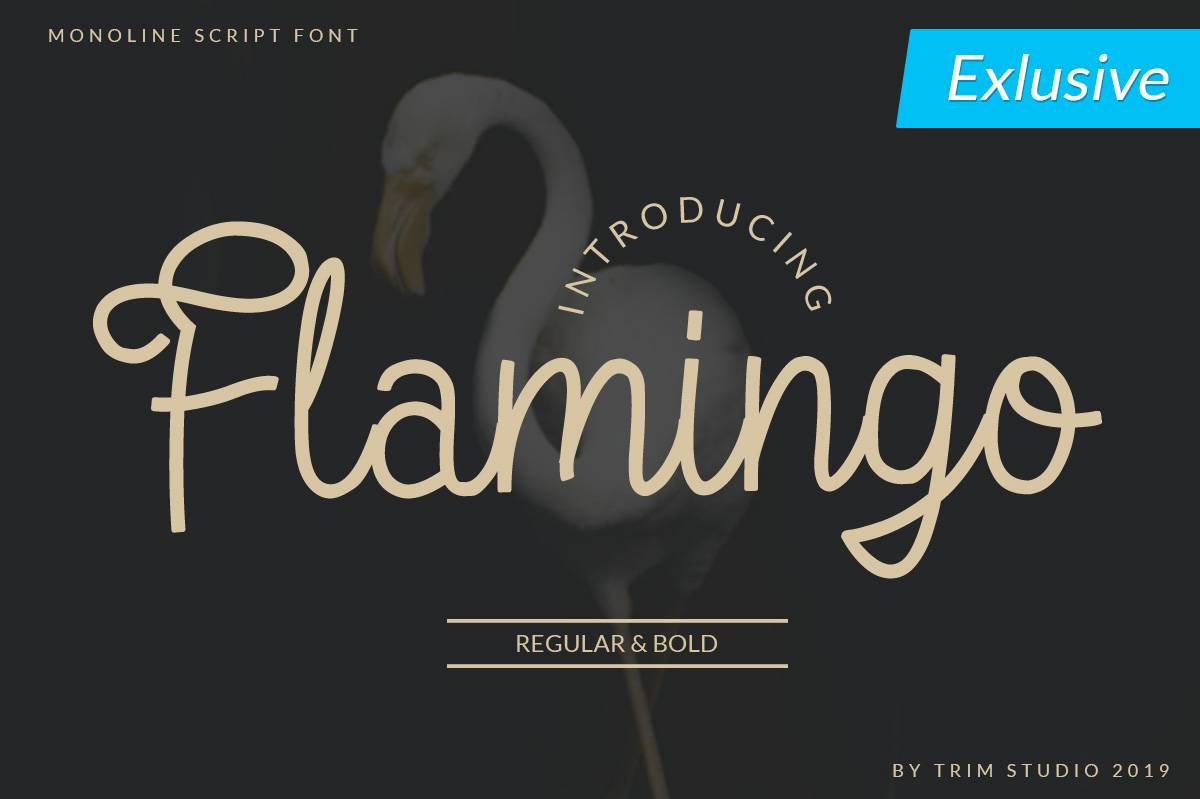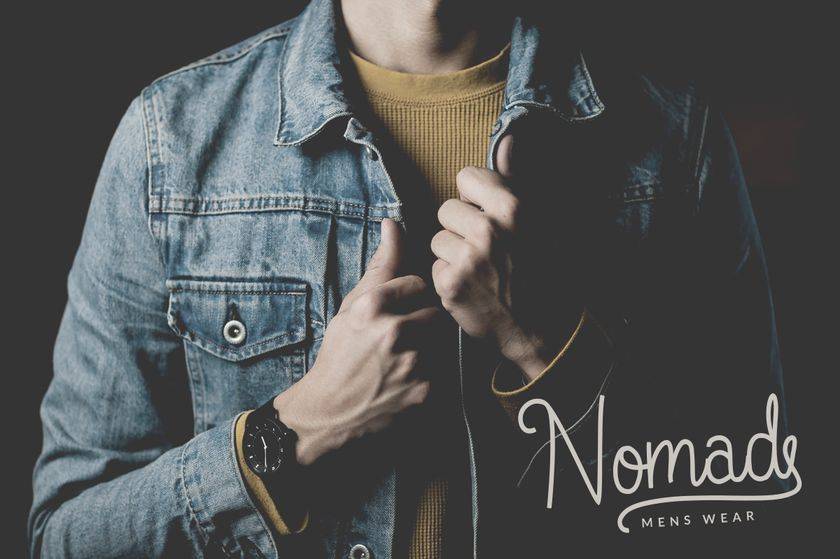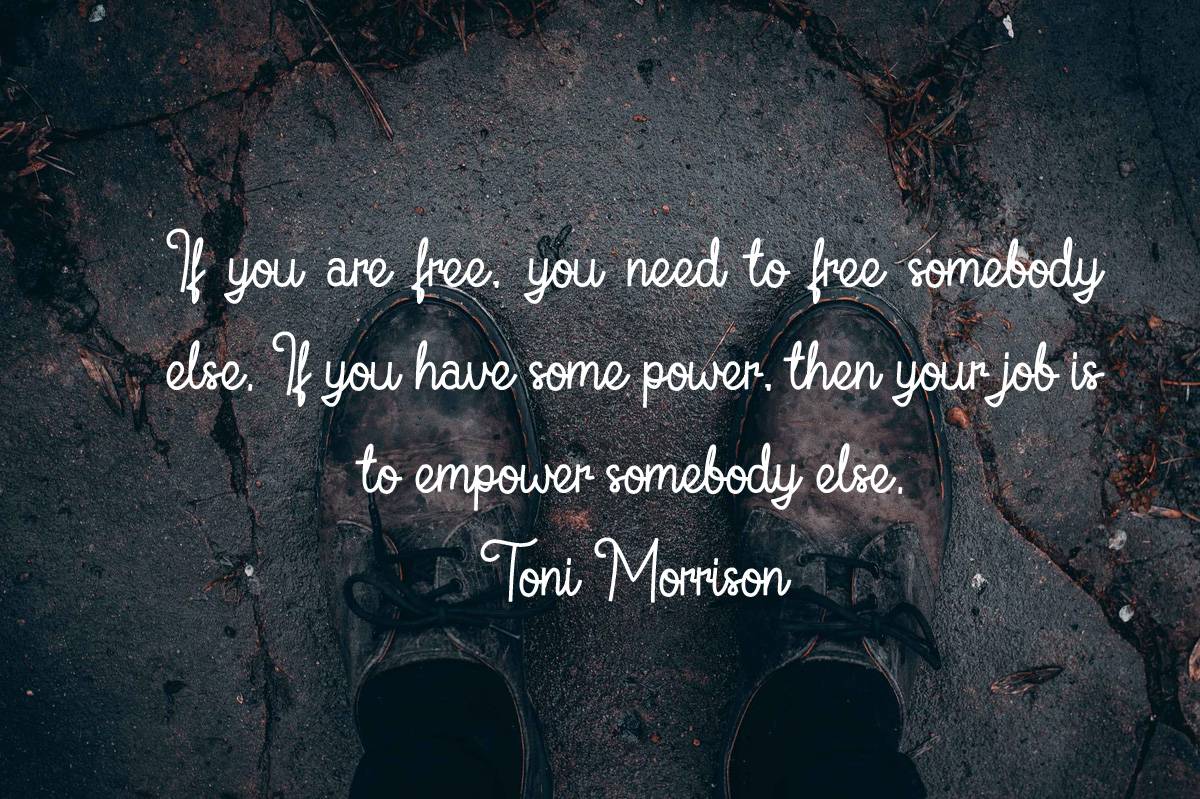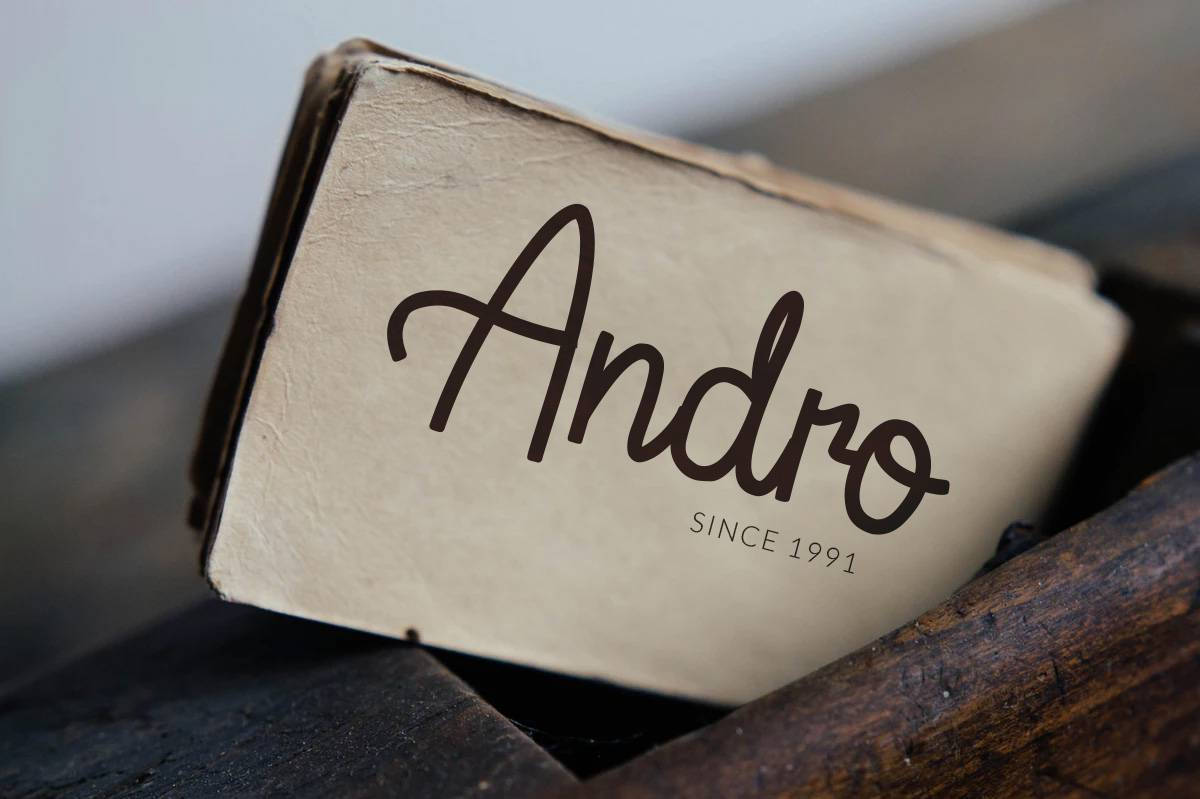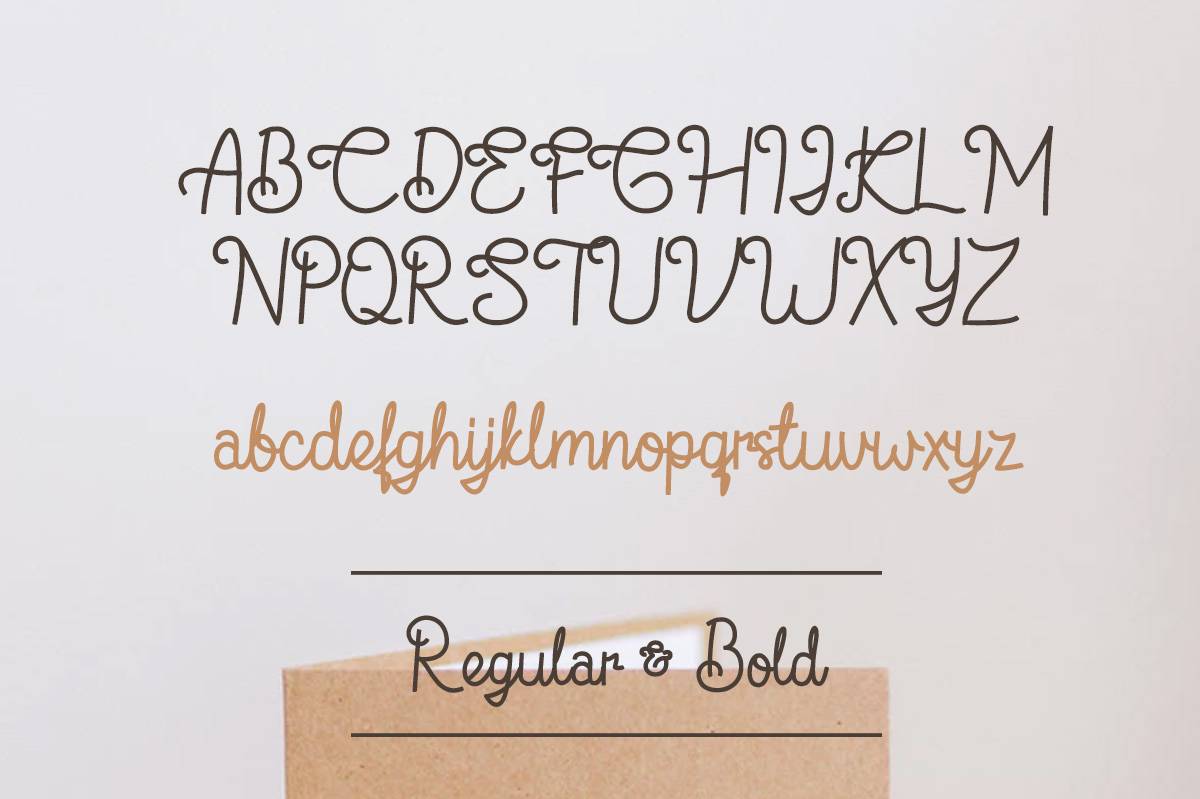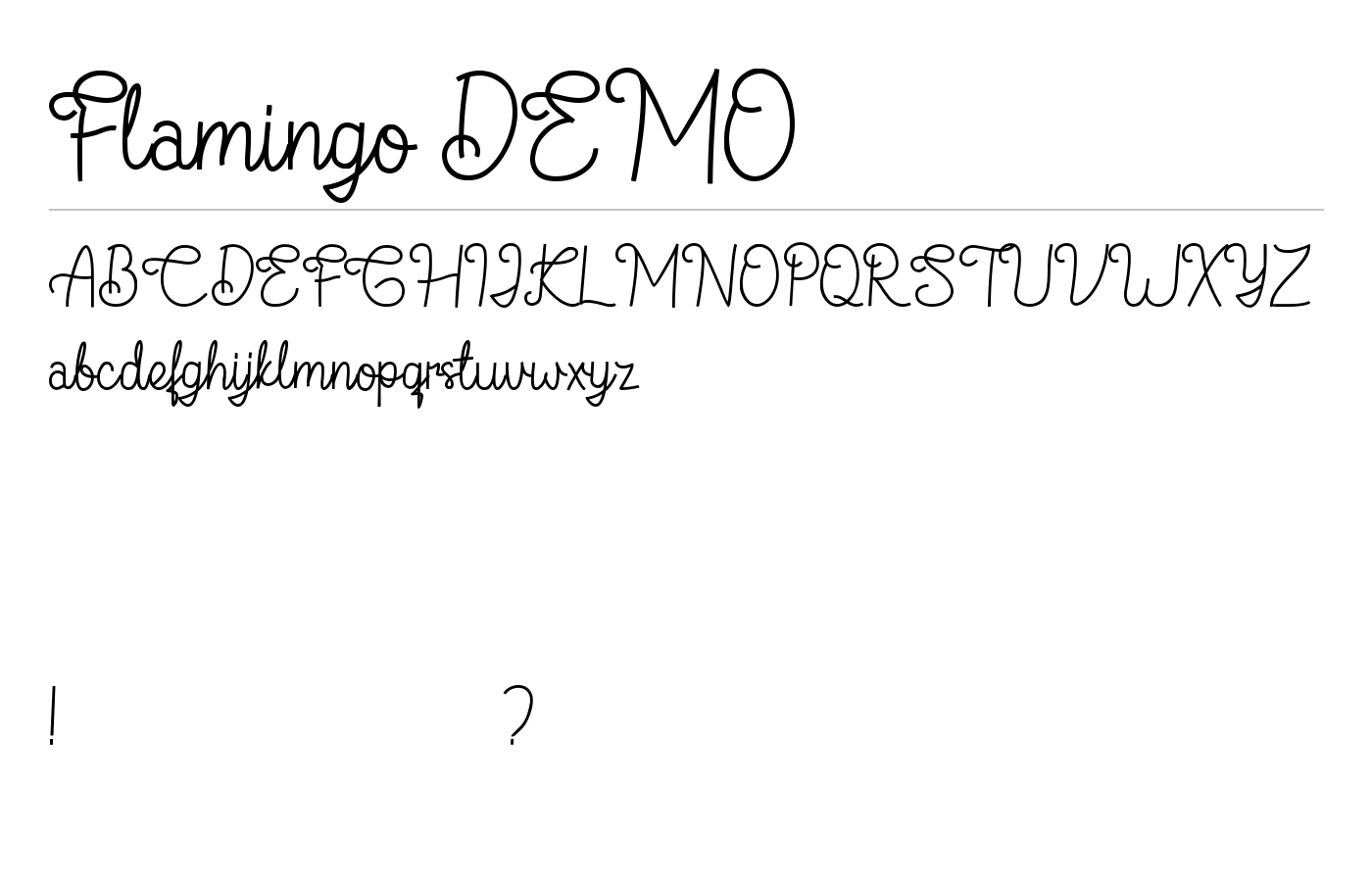
Flamingo Font is a playful and delicate script-inspired typeface with slender, flowing lines and whimsical curls that give it a light and airy feel. Its fine, consistent stroke weight and looping letterforms make it ideal for creative, feminine, and casual branding, perfect for invitations, greeting cards, or boutique logos where a charming and approachable style is desired.
Flamingo Font
About Flamingo Font
| Font family | Flamingo Font |
| Release date | 2019-02-27 |
| Designer | Trim Studio |